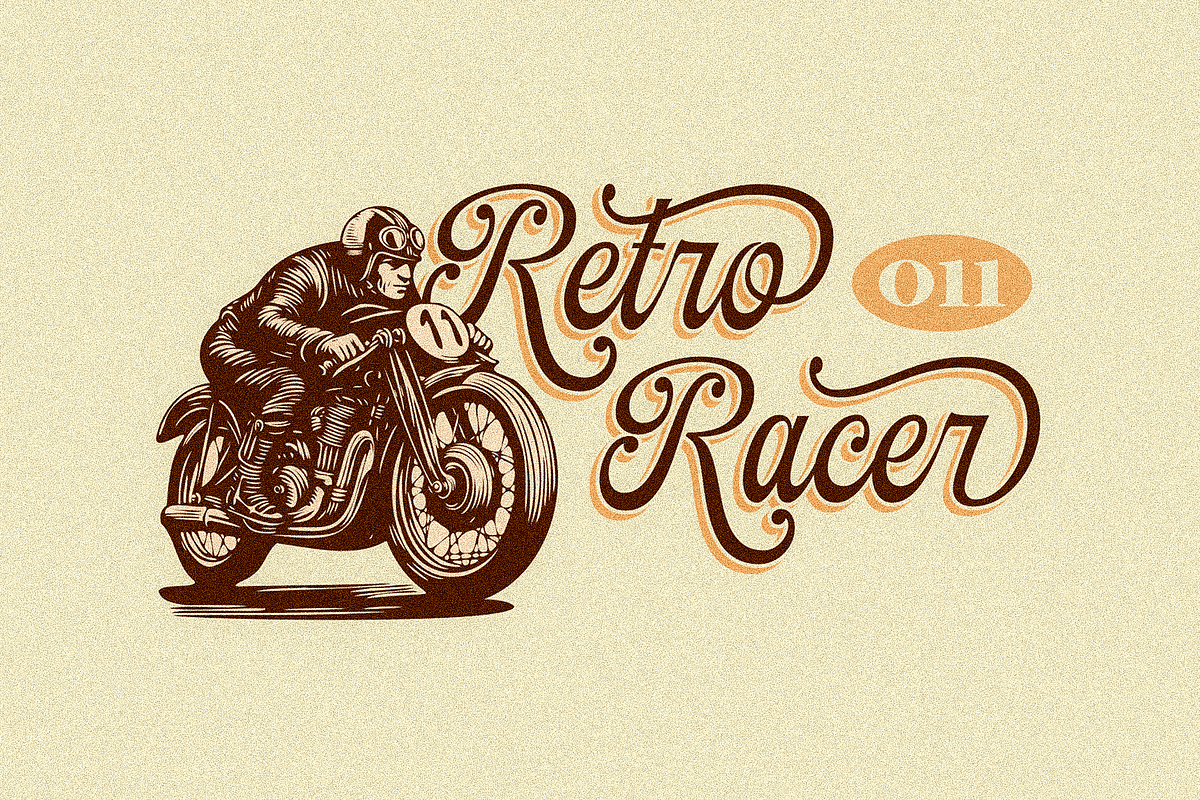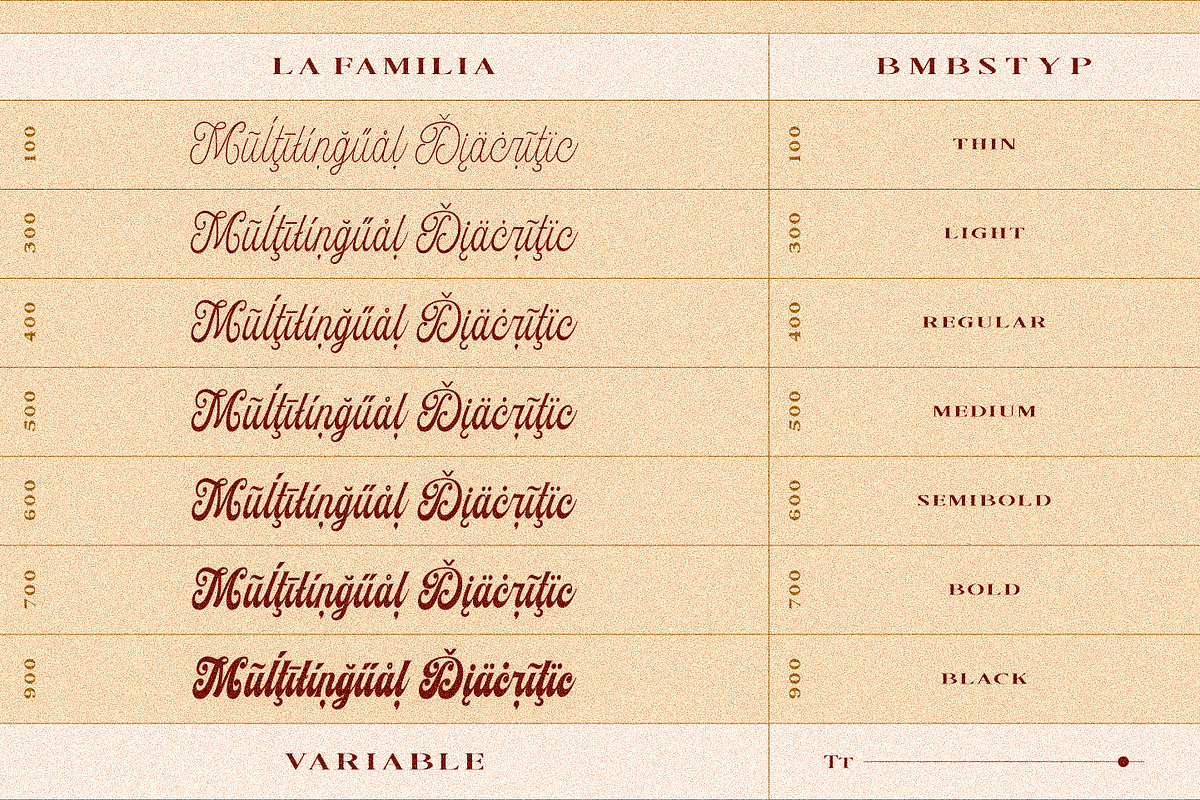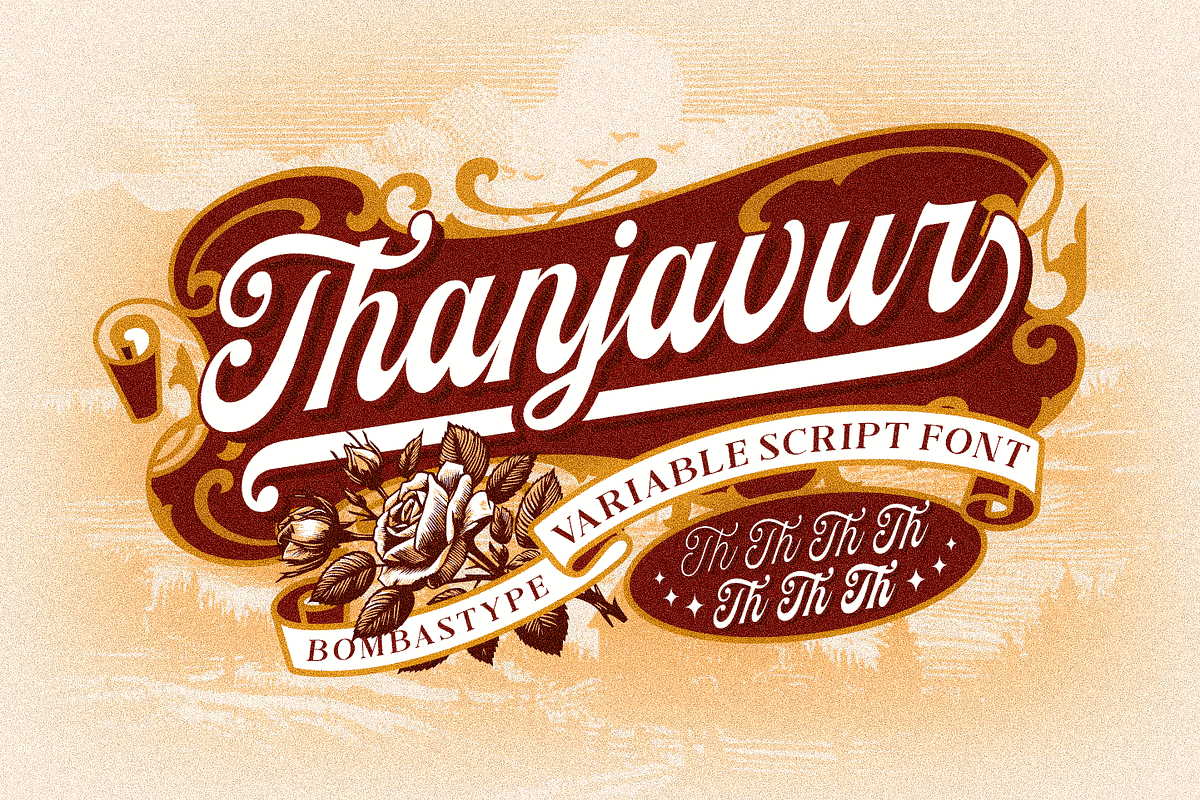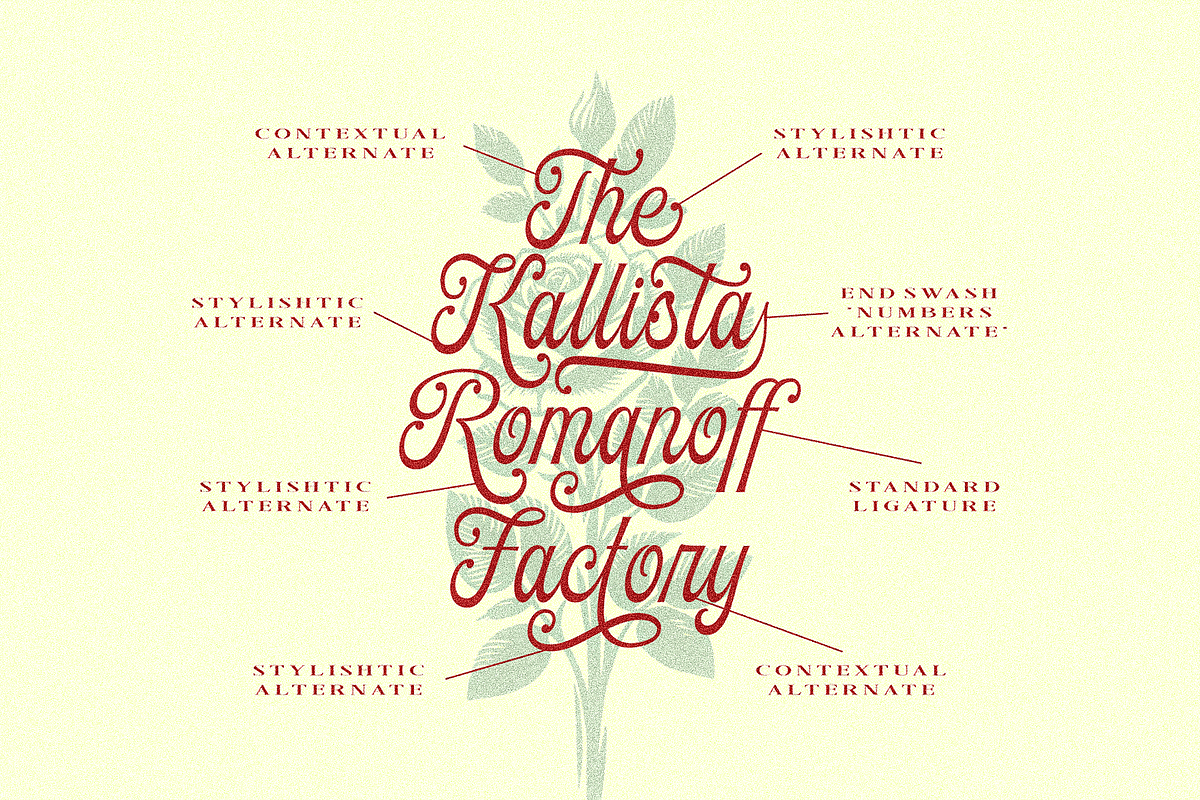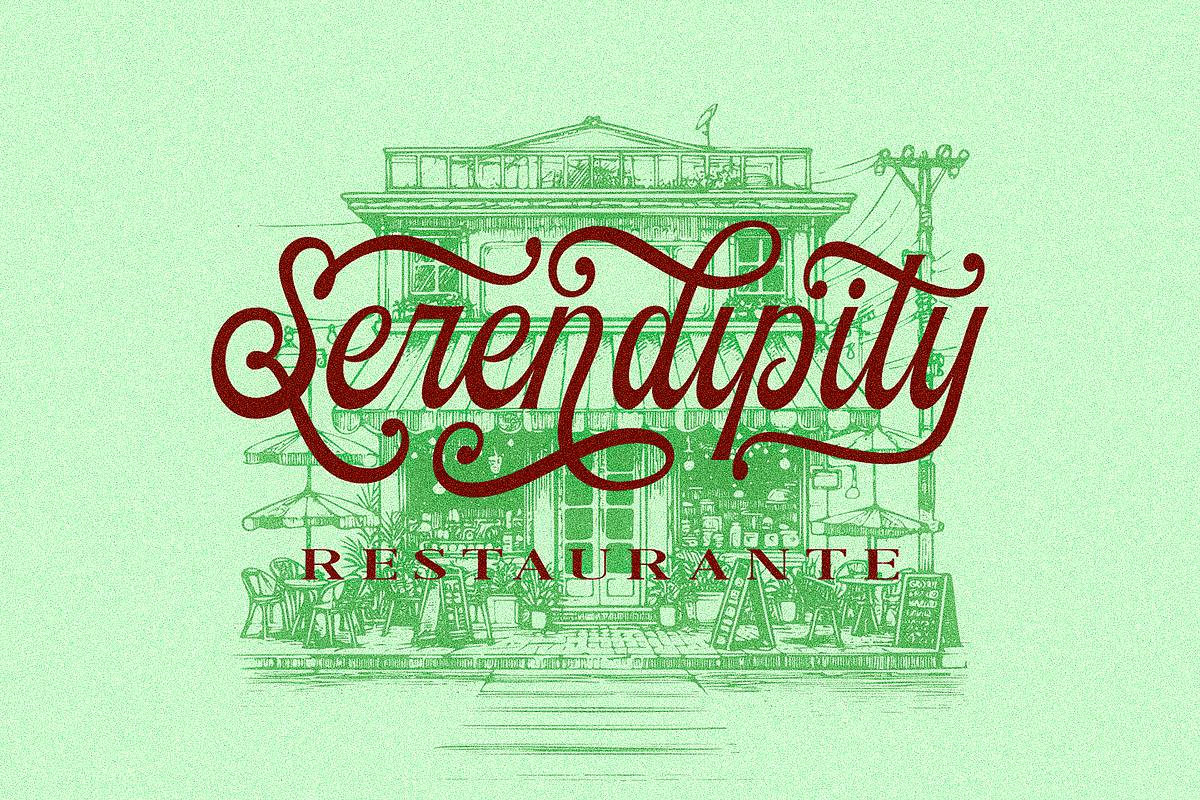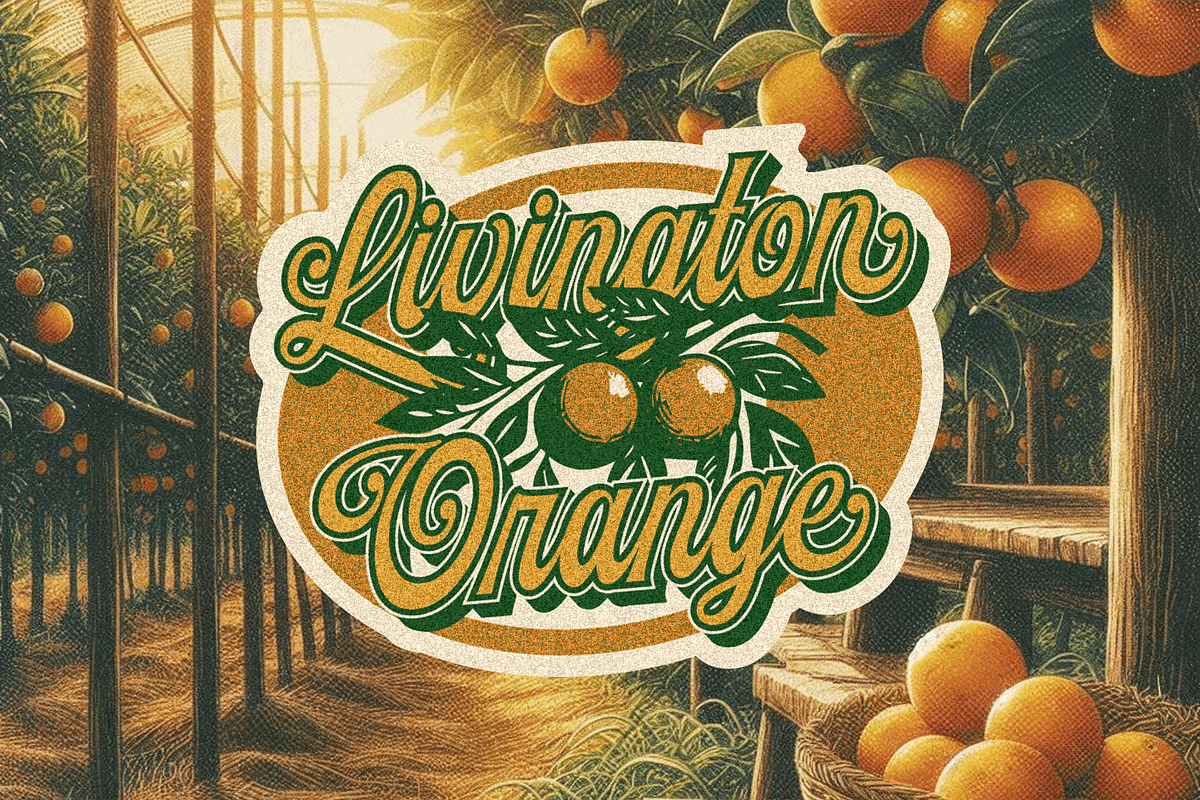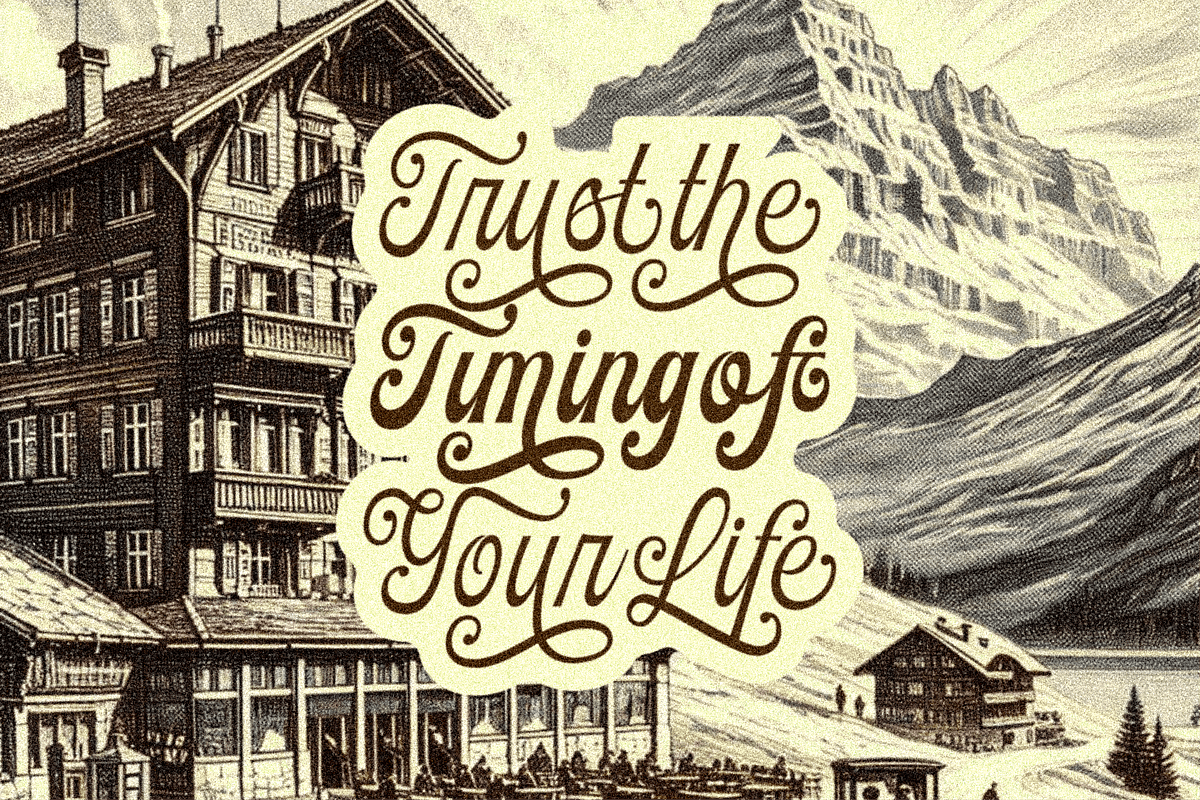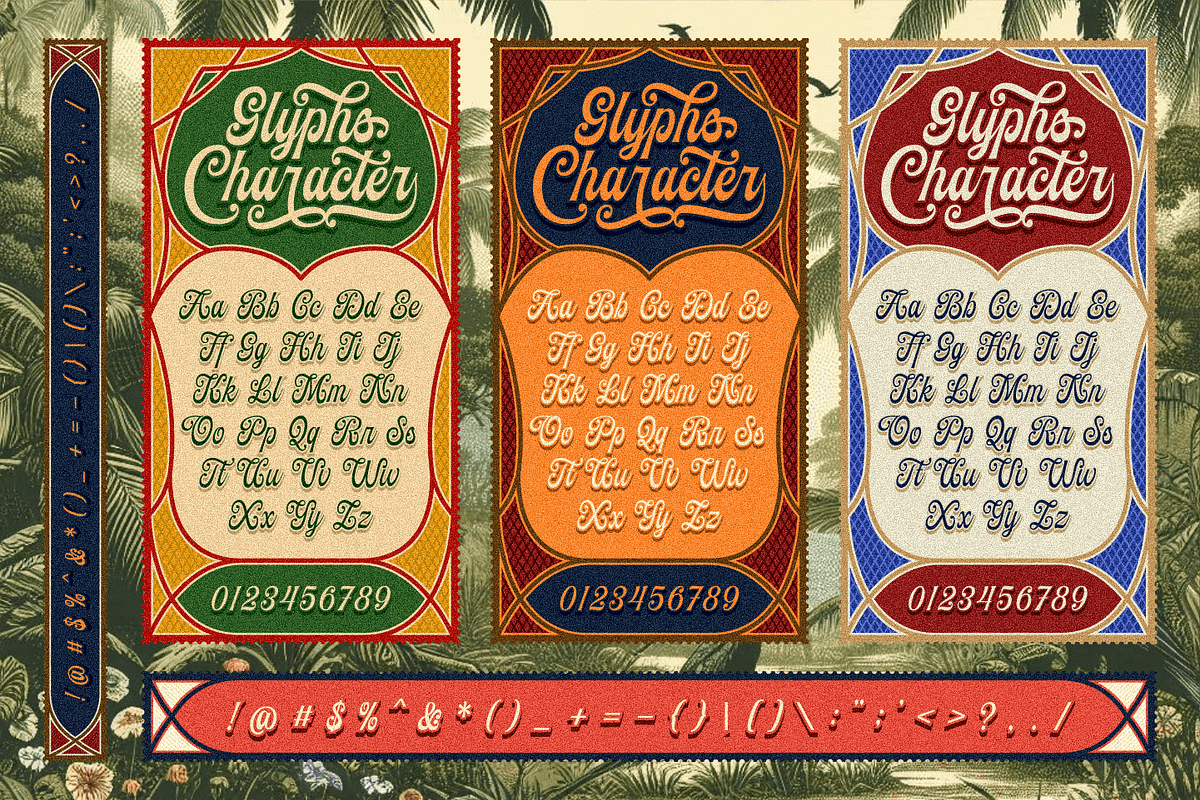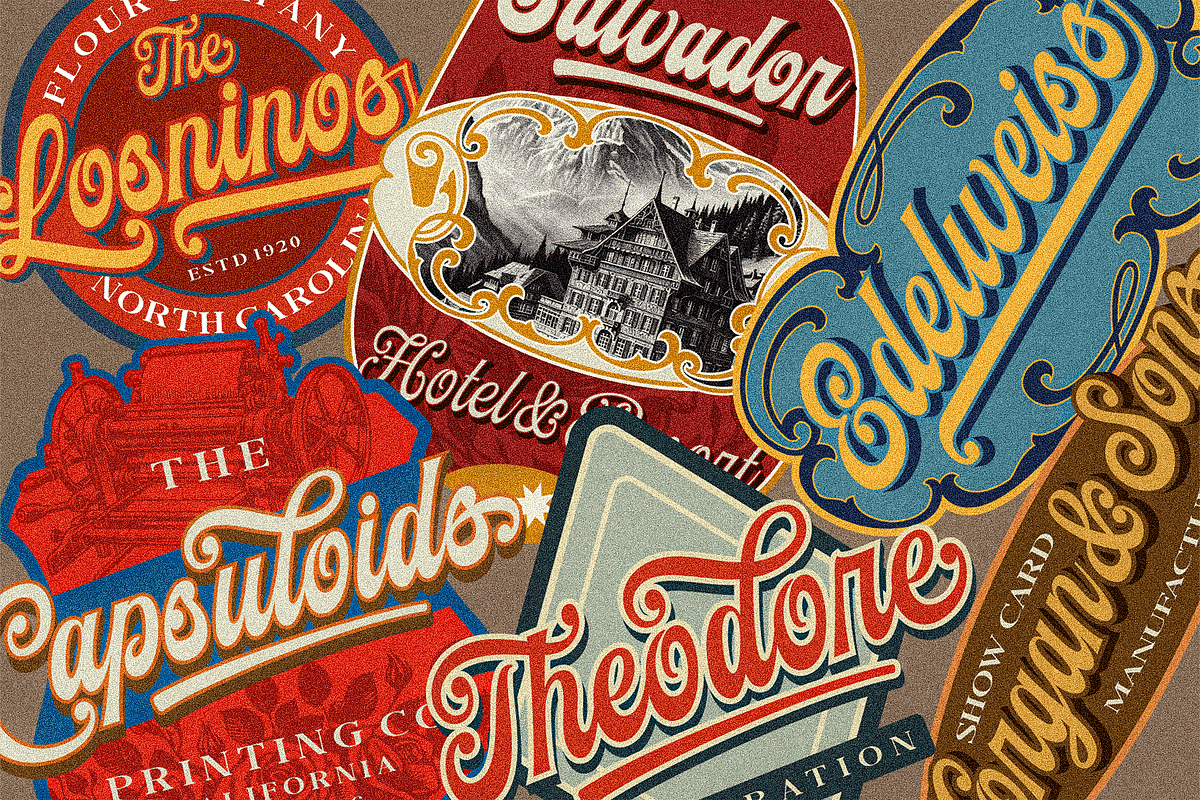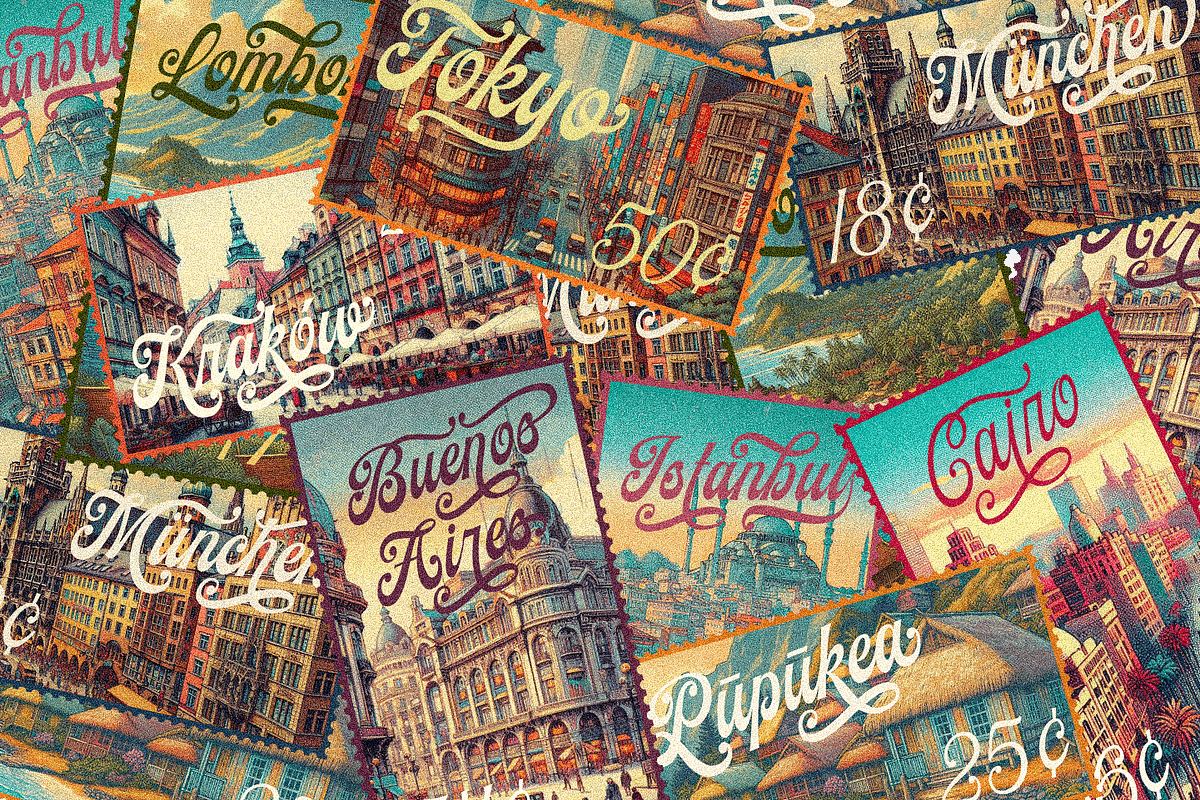
Thanjavur – Variable Display Script
"Thanjavur" is a refined display script font family with a dynamic and elegant style. It offers variable font options, allowing users to adjust the weight and create custom typography that suits a variety of design needs. Its graceful curves and intricate details make it an ideal choice for branding, headlines, and creative projects where a touch of sophistication is required. Perfect for adding both character and versatility to your designs.